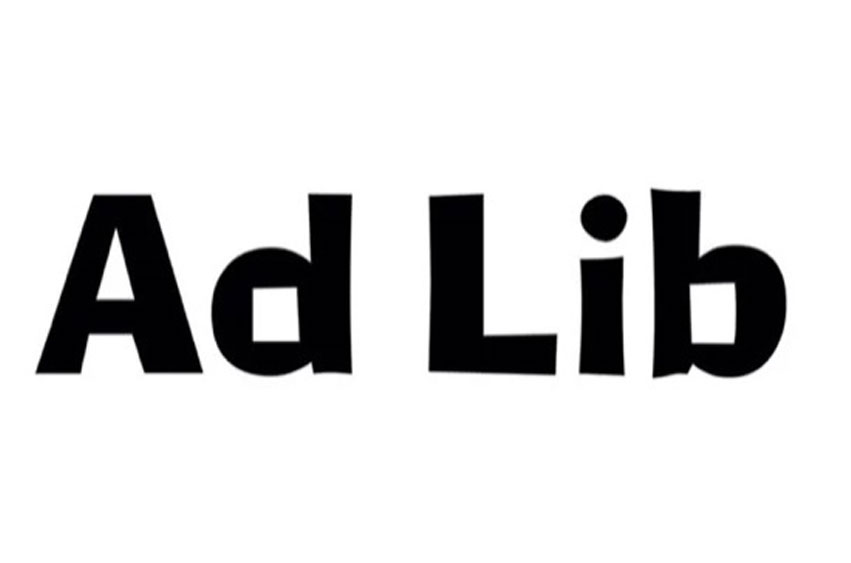
Ad Lib Font
Ad Lib Font is a classy display funny typeface that is luxuriously bold and unique in style specifically for natural use, with a cool touch.
It is suitable for wedding invitations, posters, magazines, graphic designs, branding, editorials, logo design, social media, and other projects.